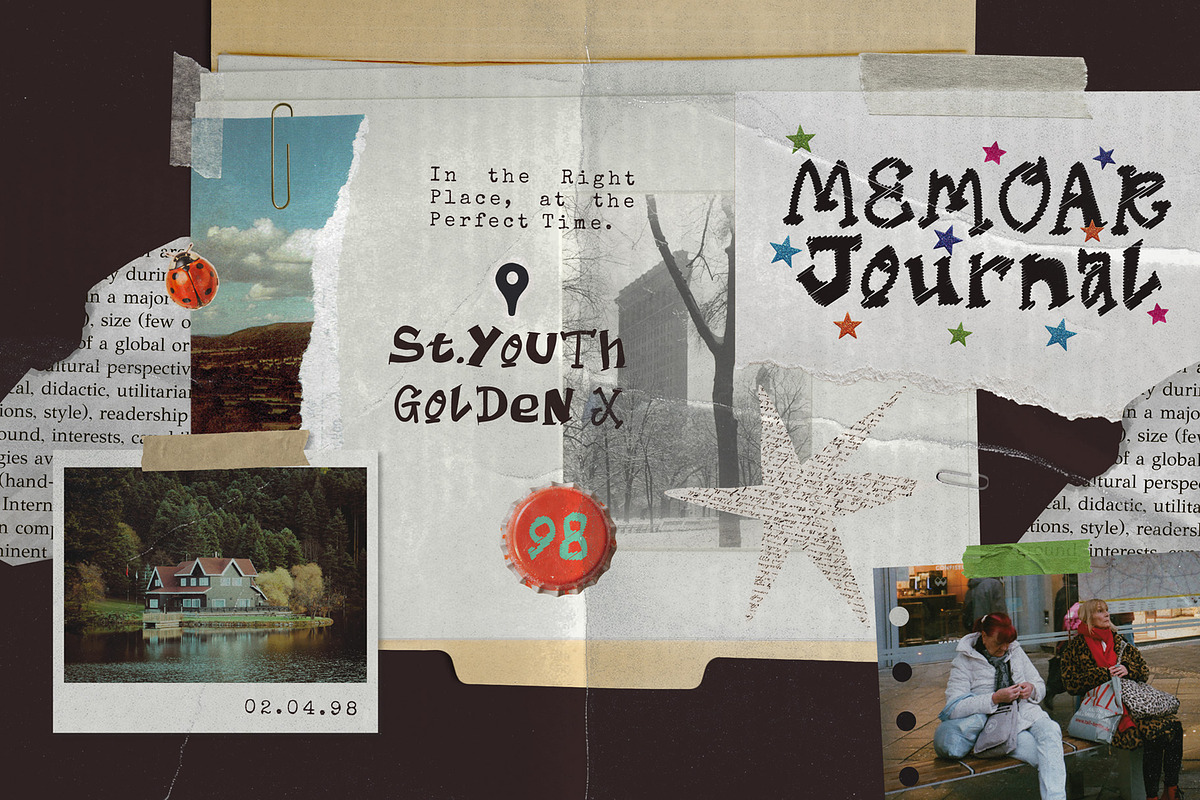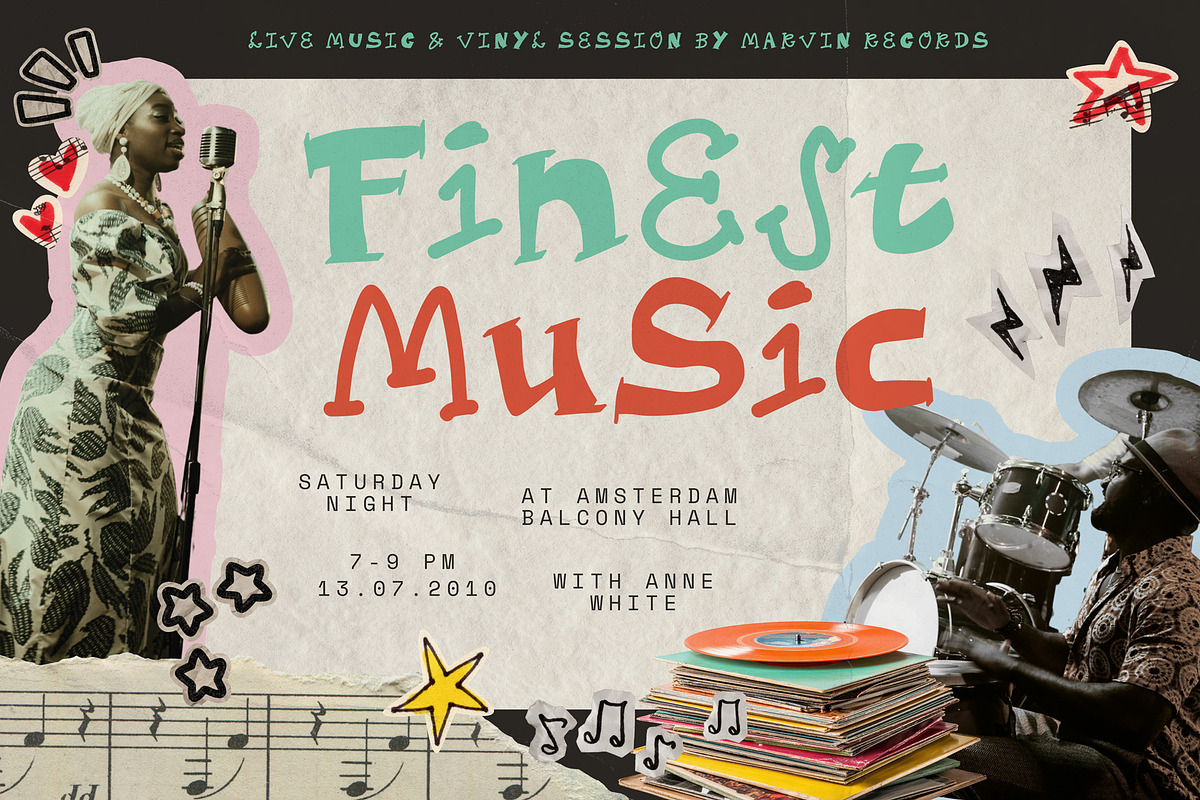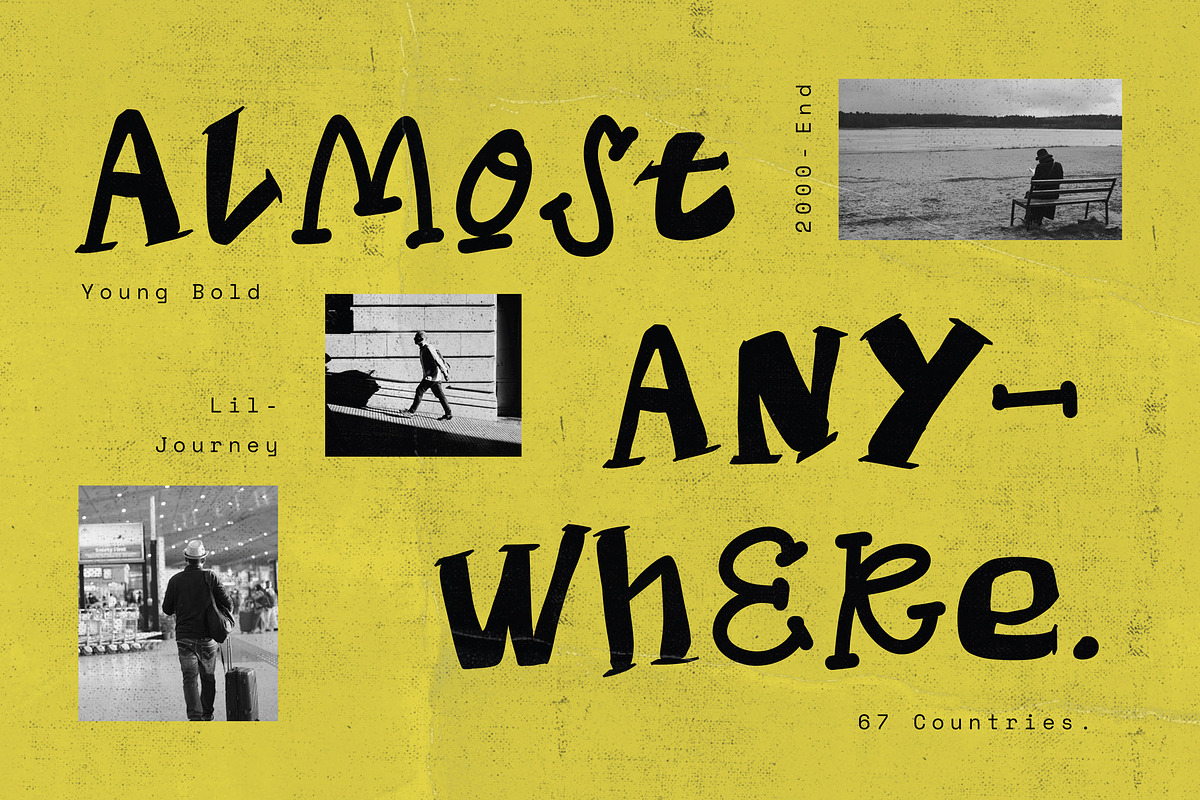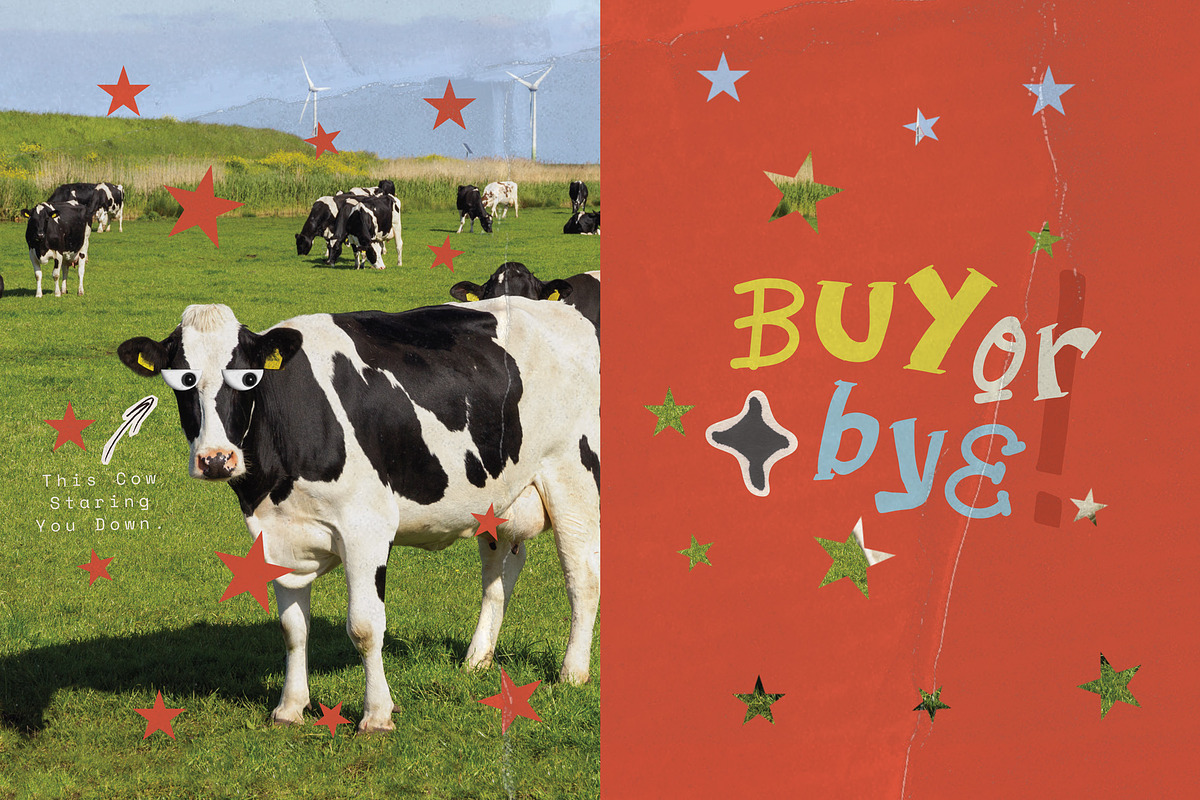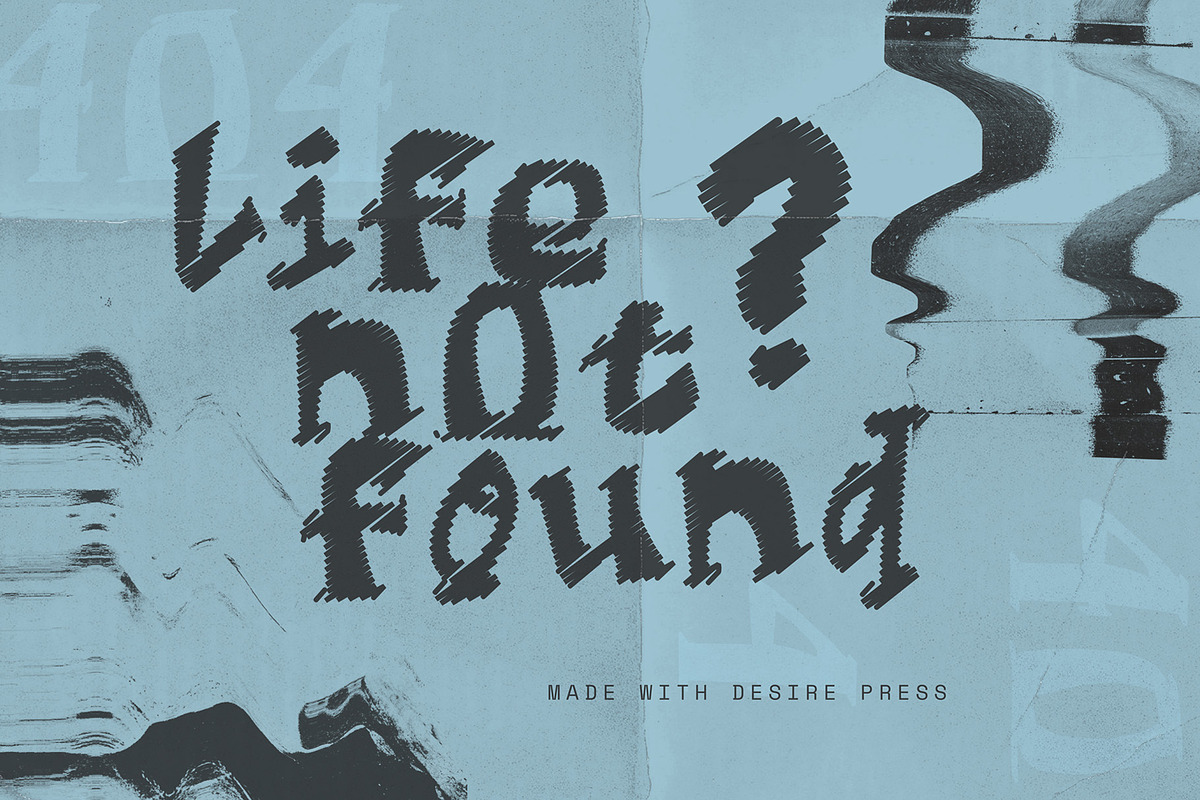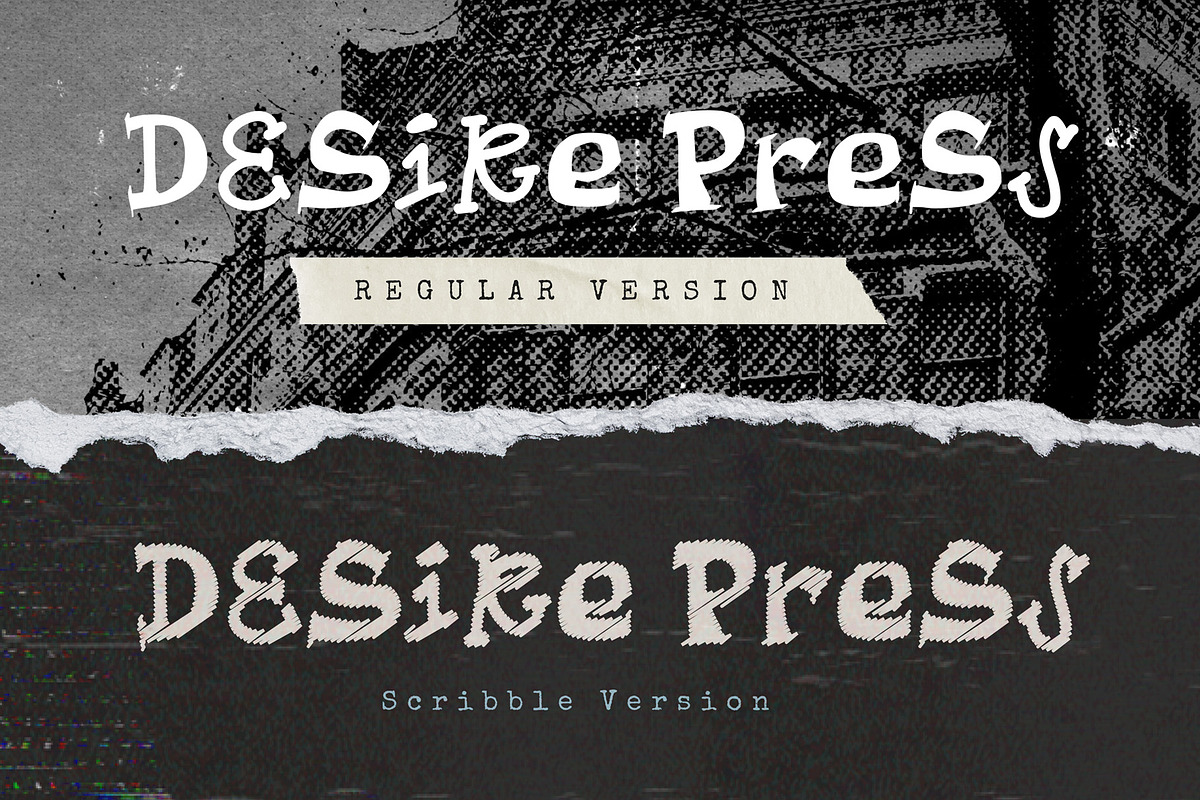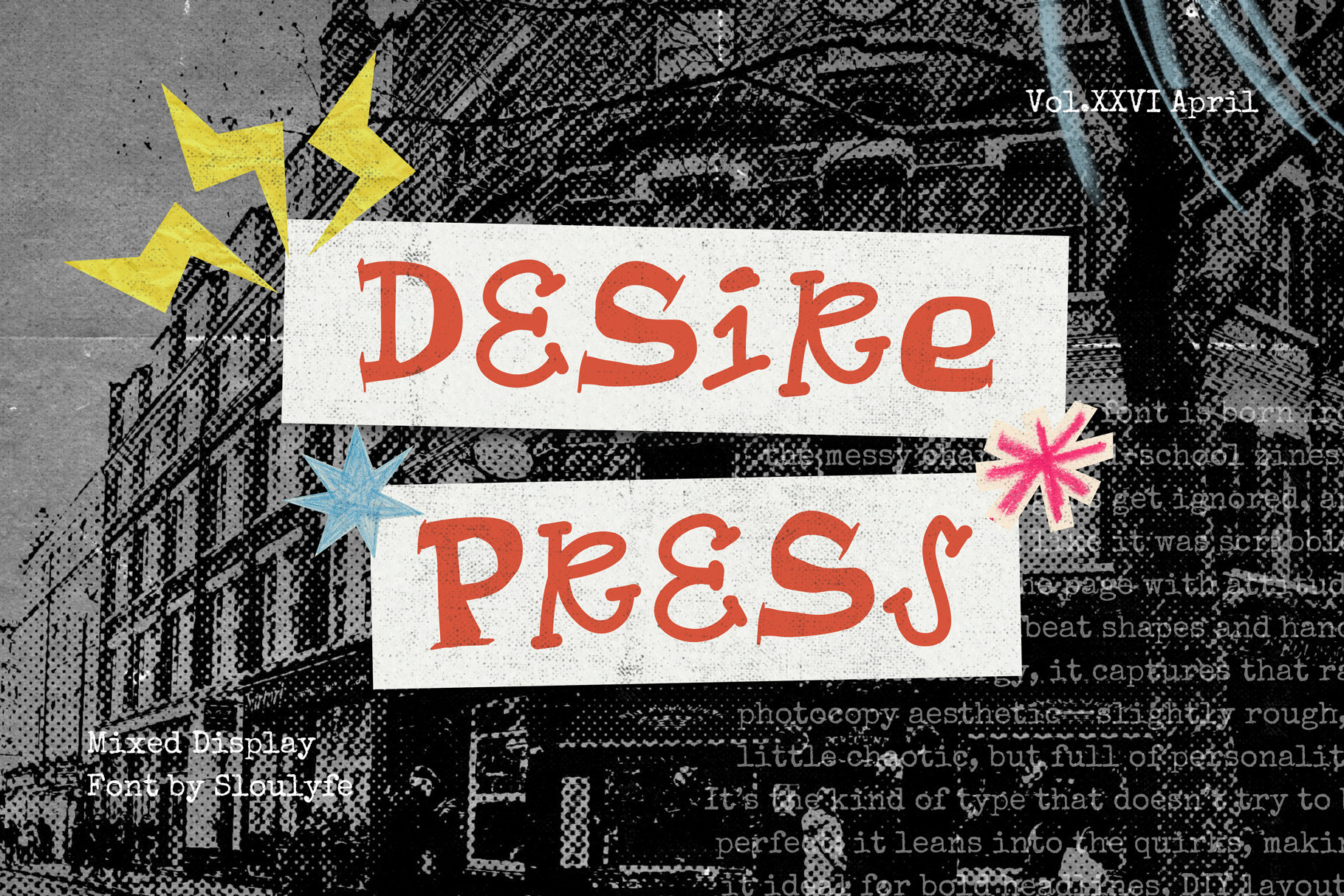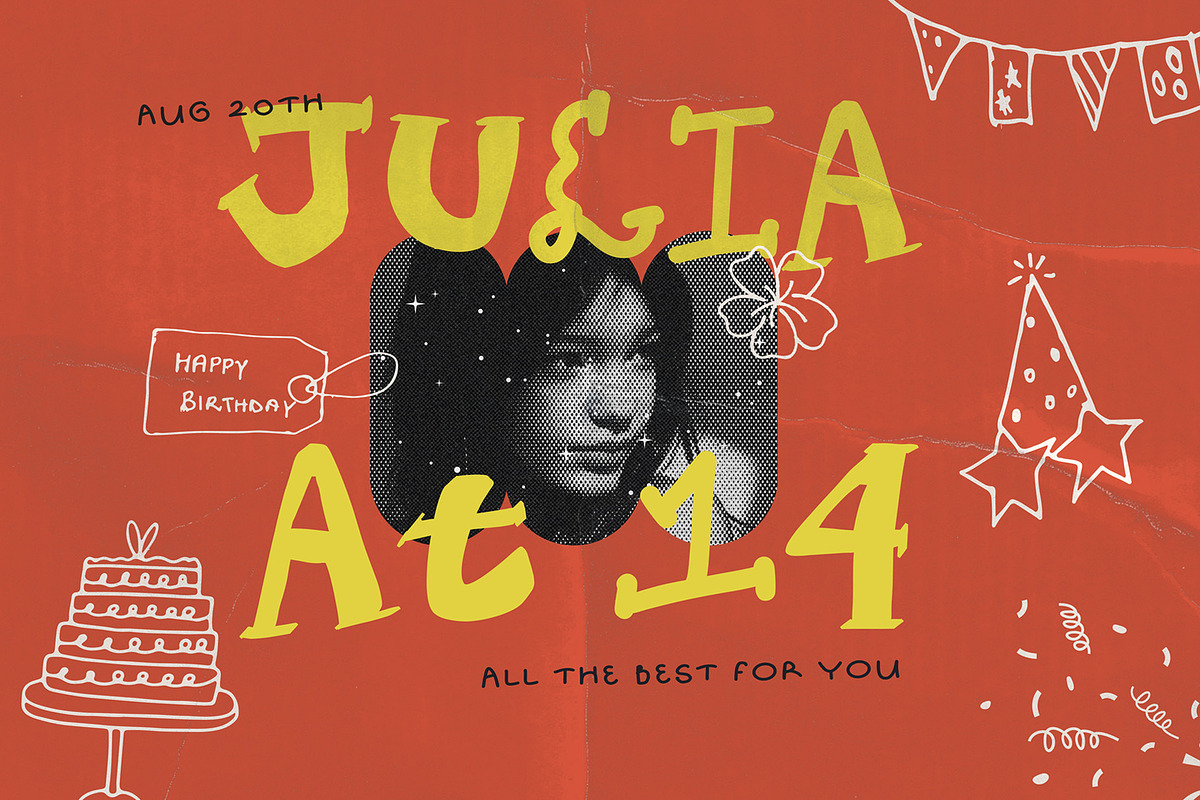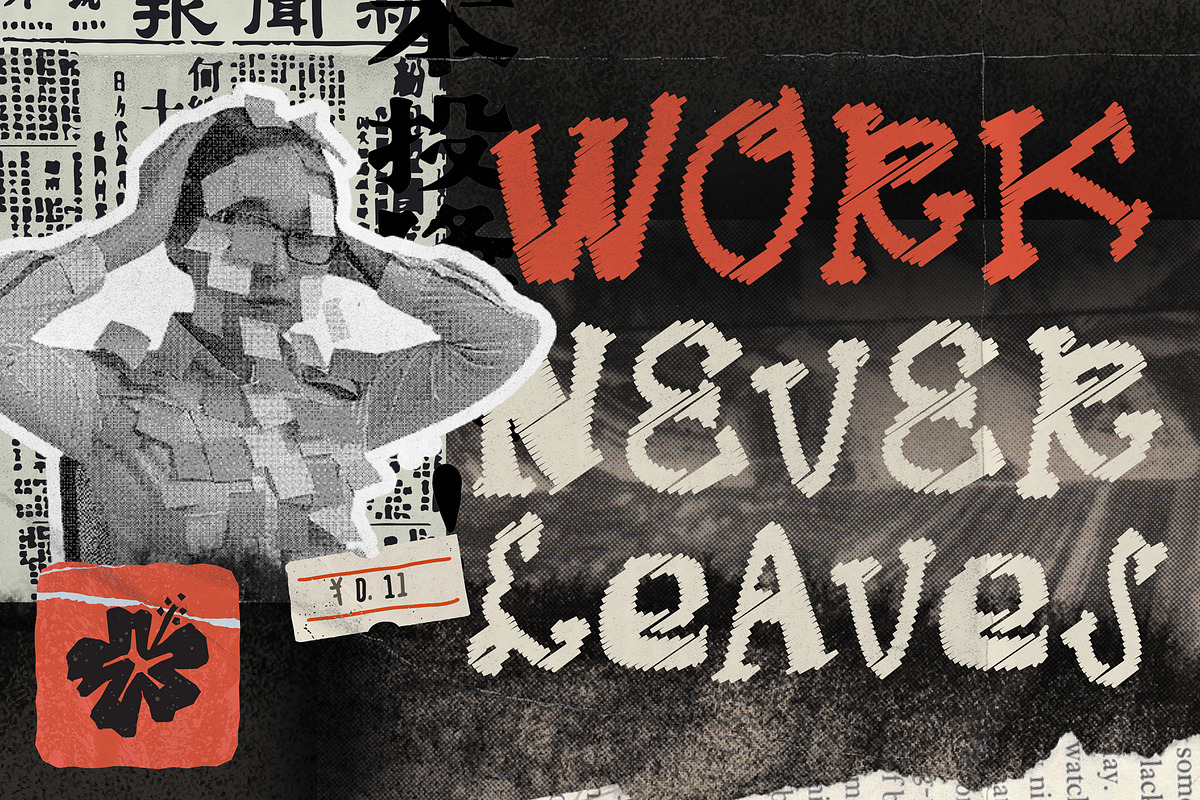
Desire Press - Zine Display Font
Desire Press bursts in with gritty, mixed letterforms that follow zero rules. The shapes feel bold yet quirky, slightly offbeat, with that messy charm and playful rebel edge—like a raw zine style straight from the copy machine. Perfect for posters, indie branding, scrapbook pages, album covers, and anything that needs wild, chaotic energy with a hint of fun, where imperfection is the whole point.
Features : Regular & Scribble Style, Uppercase & lowercase, Numbers and punctuation, Multilingual support & PUA encoded